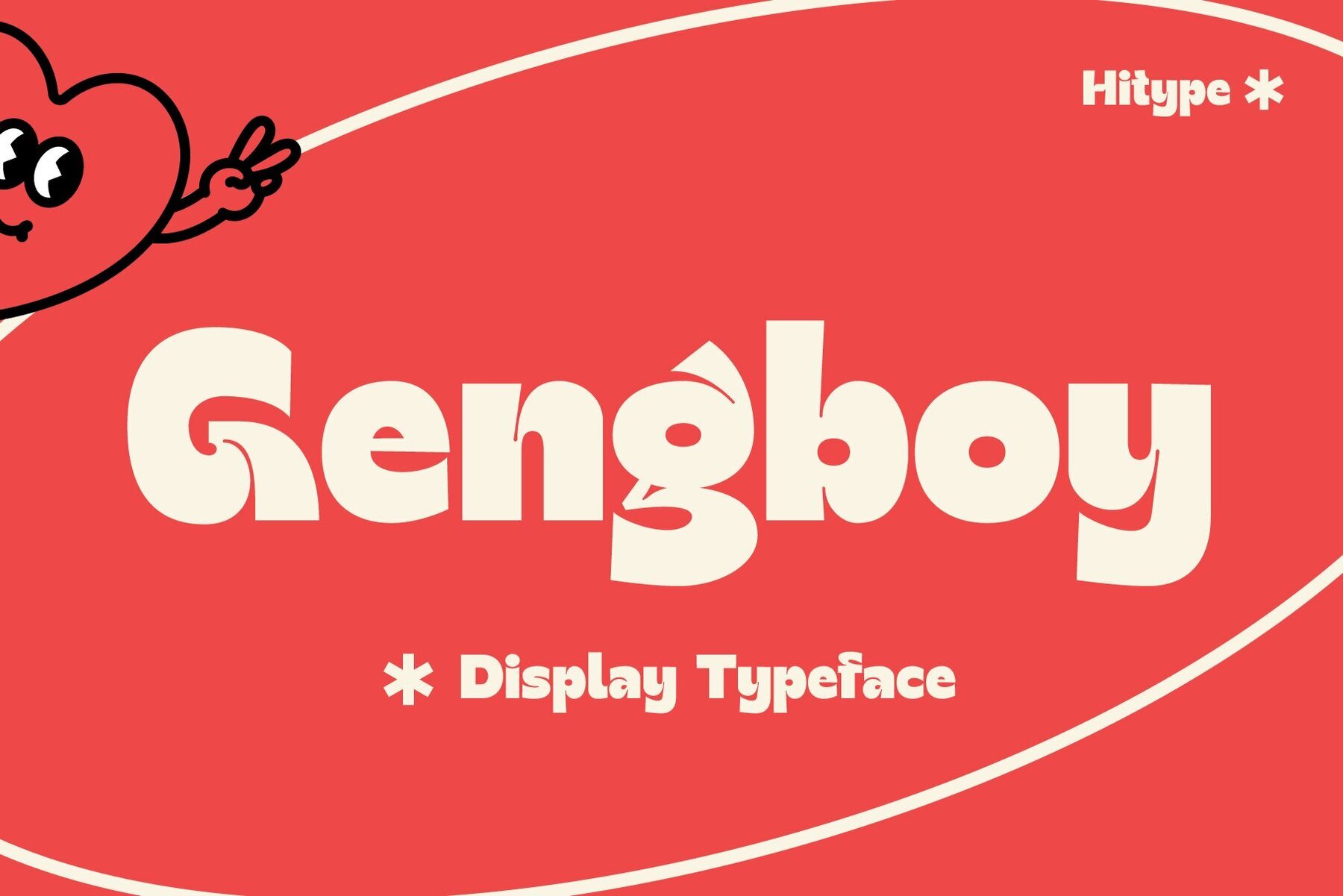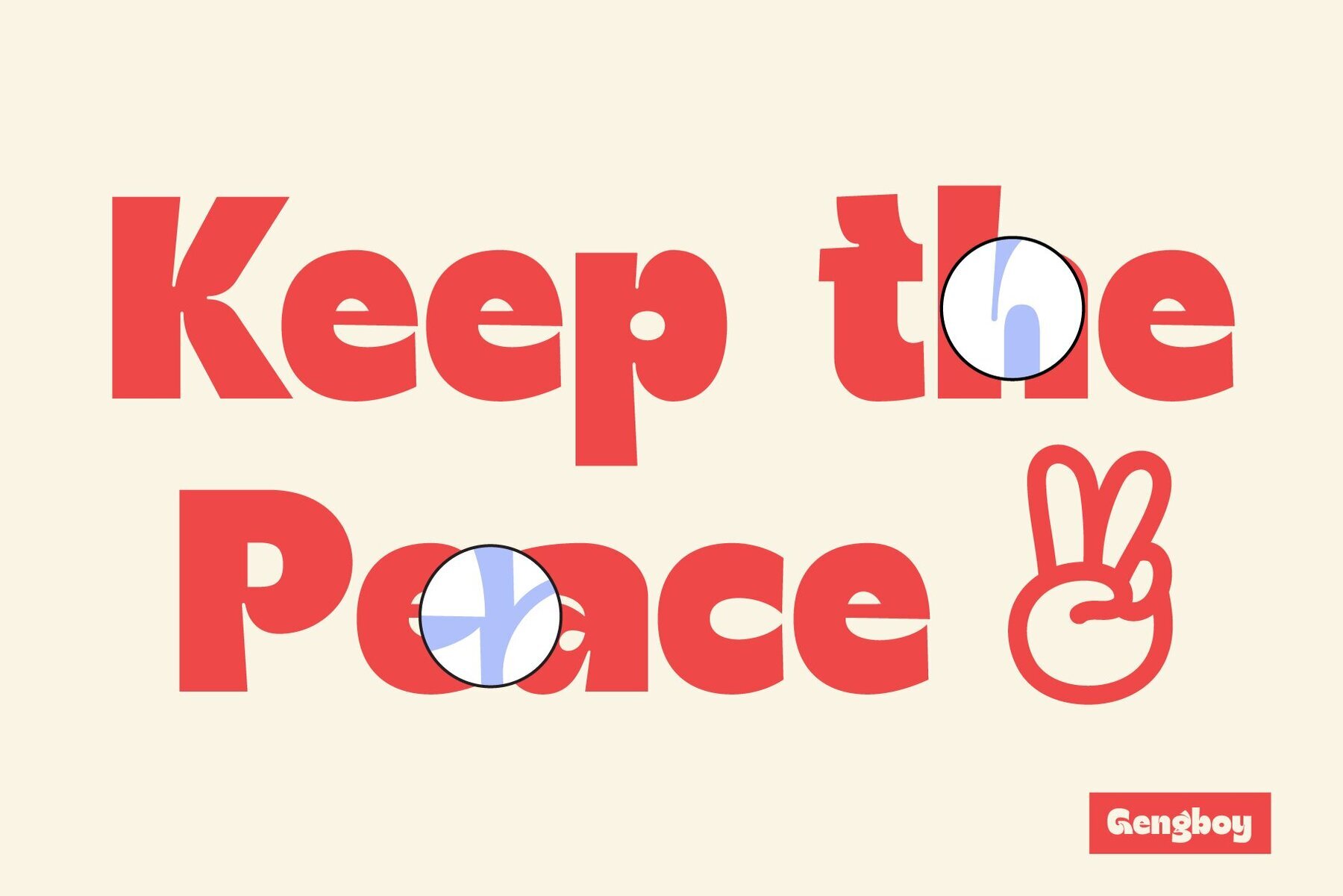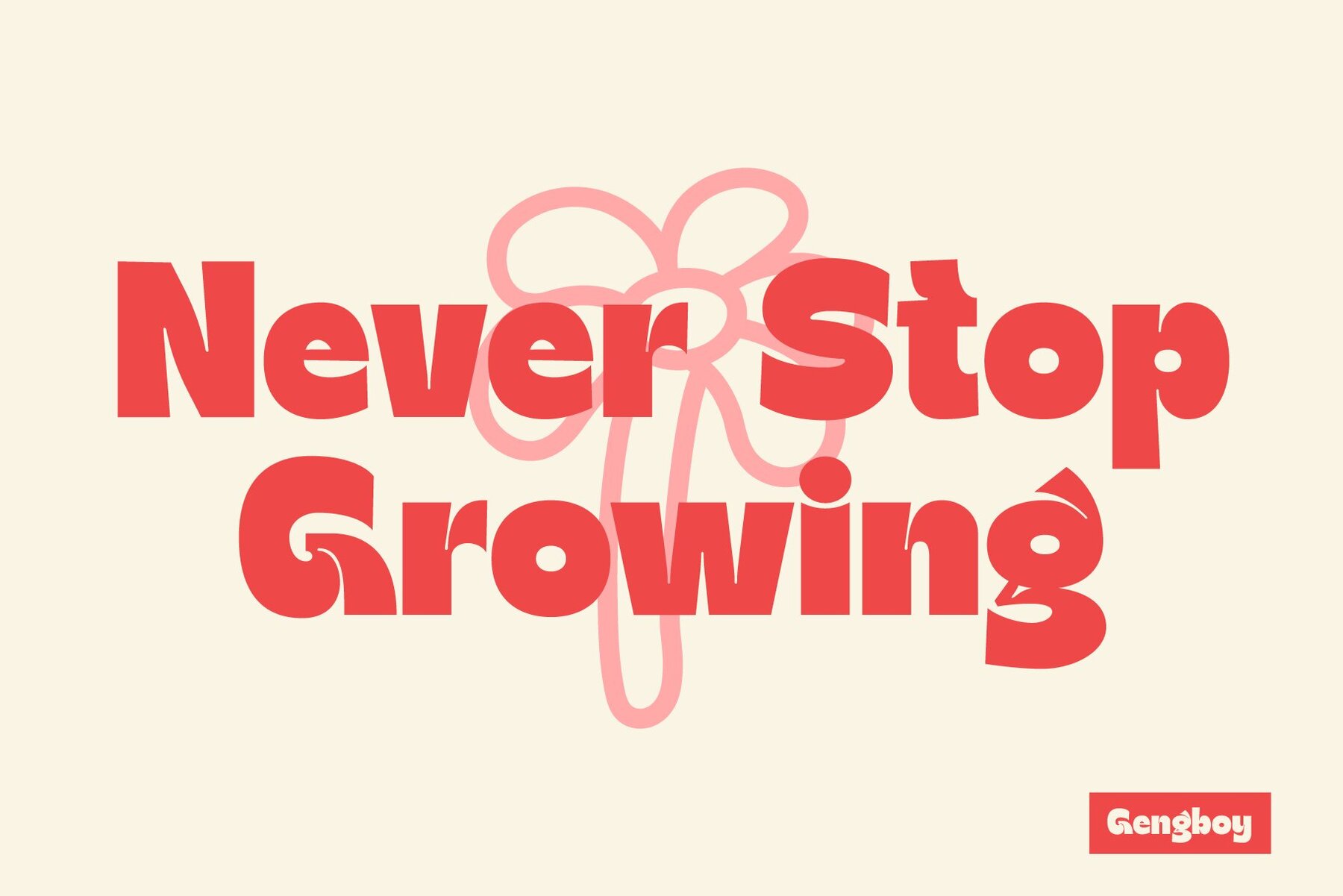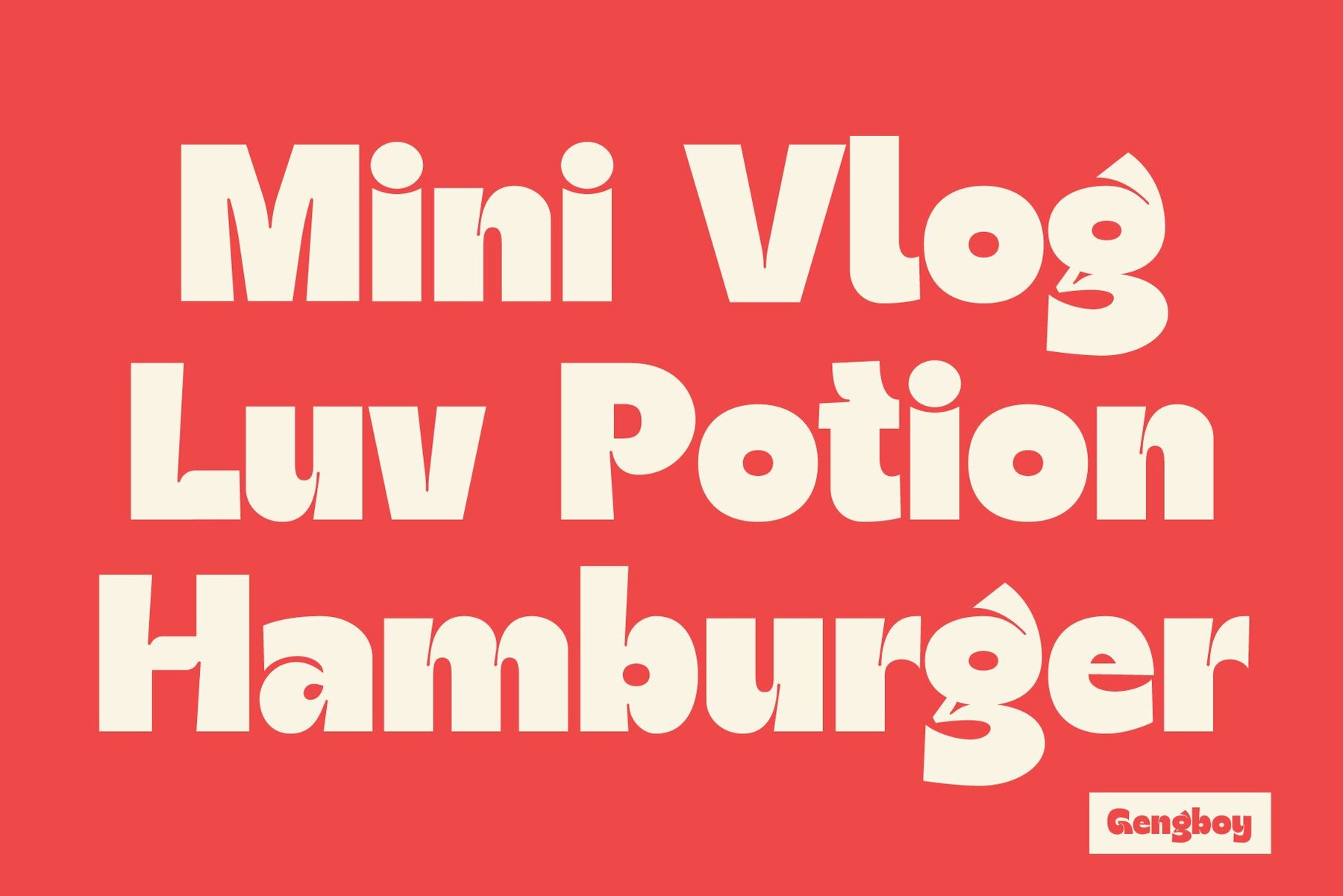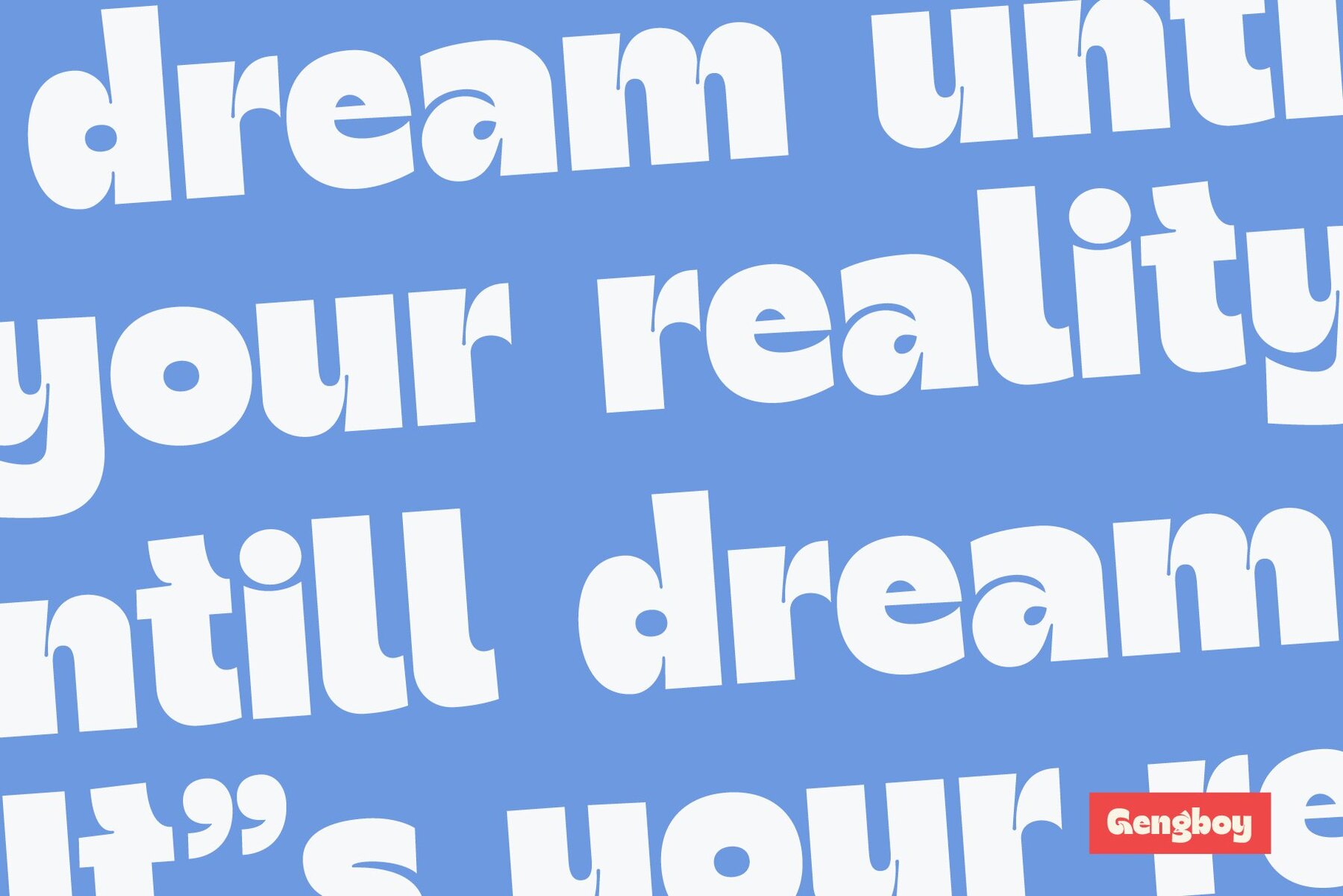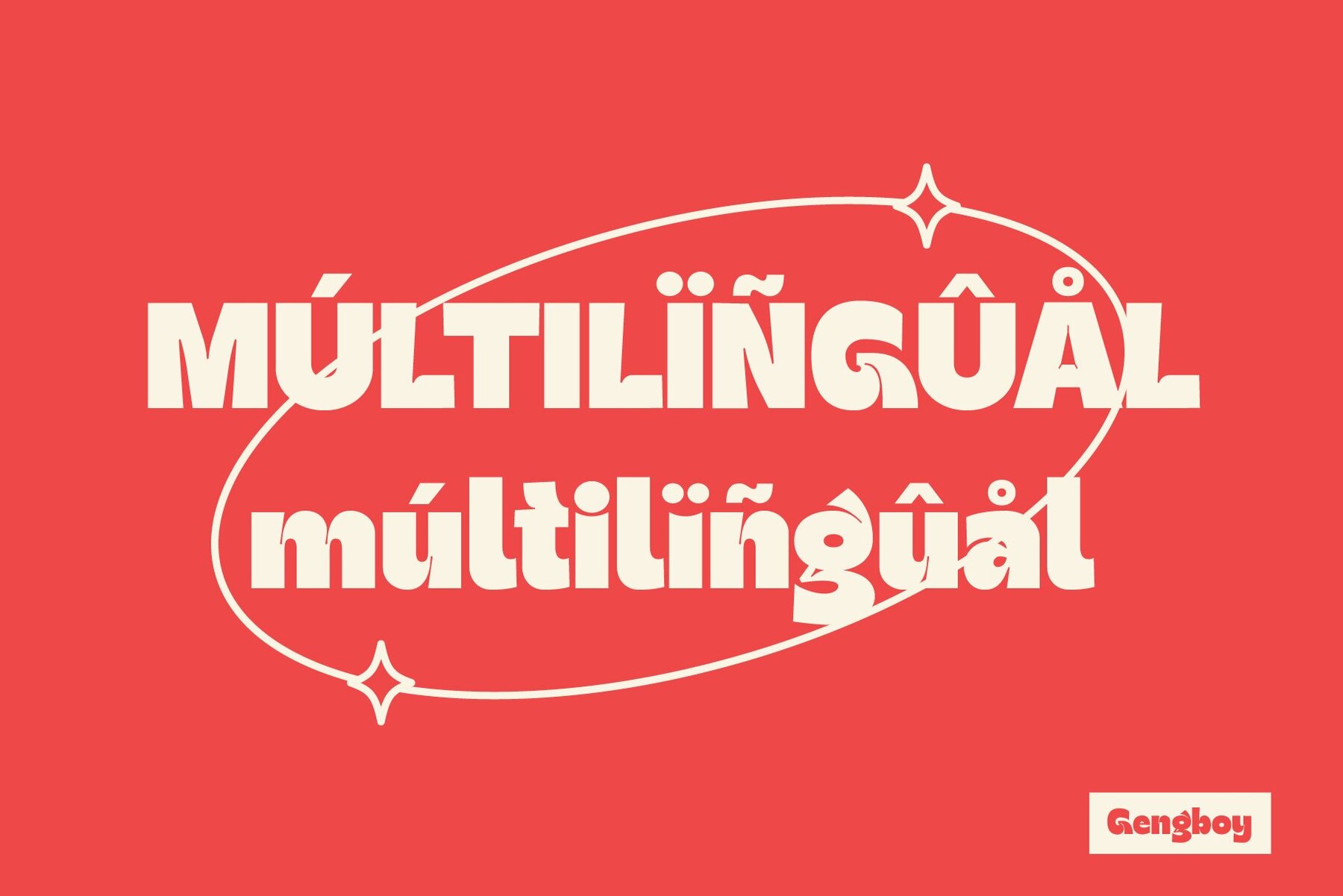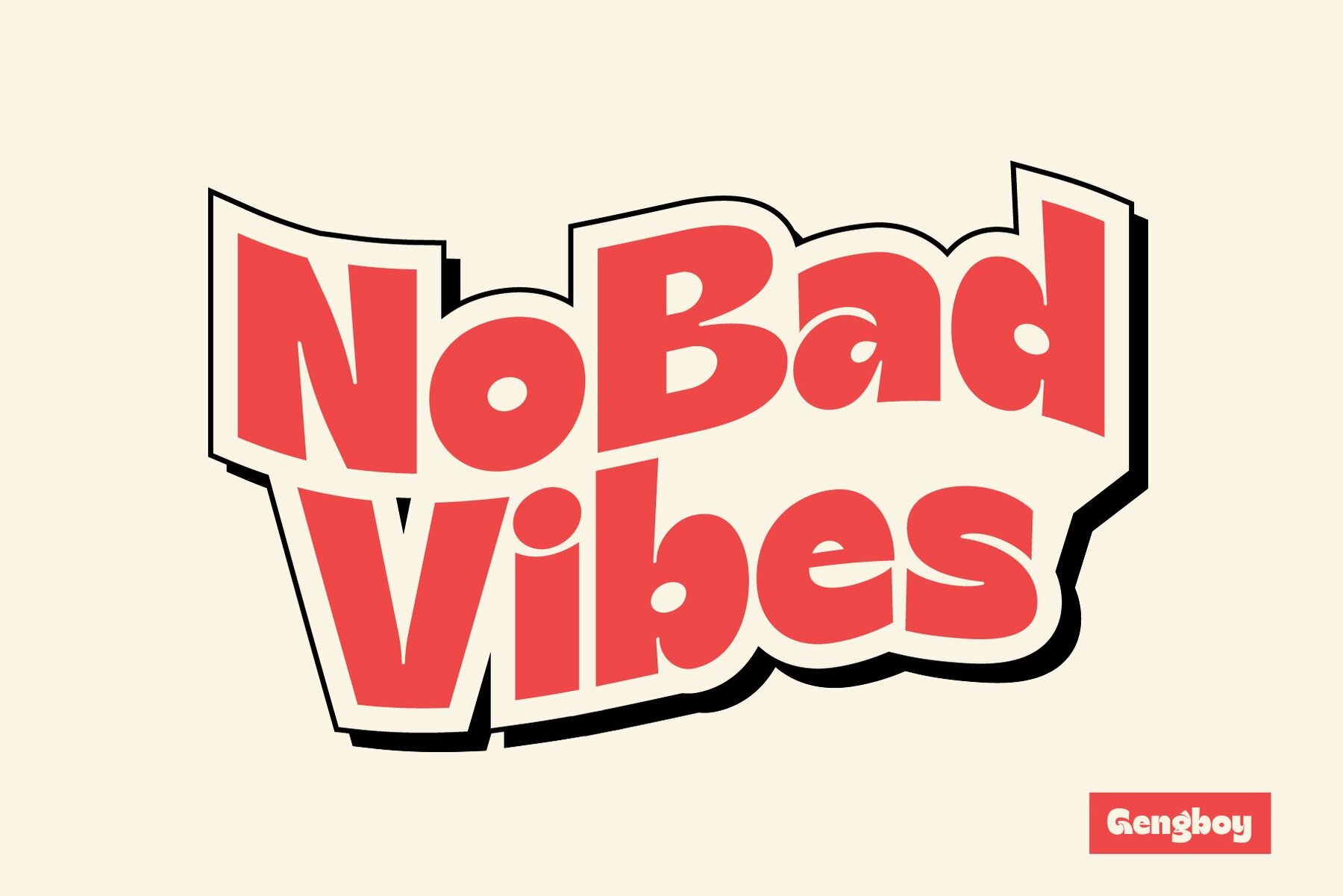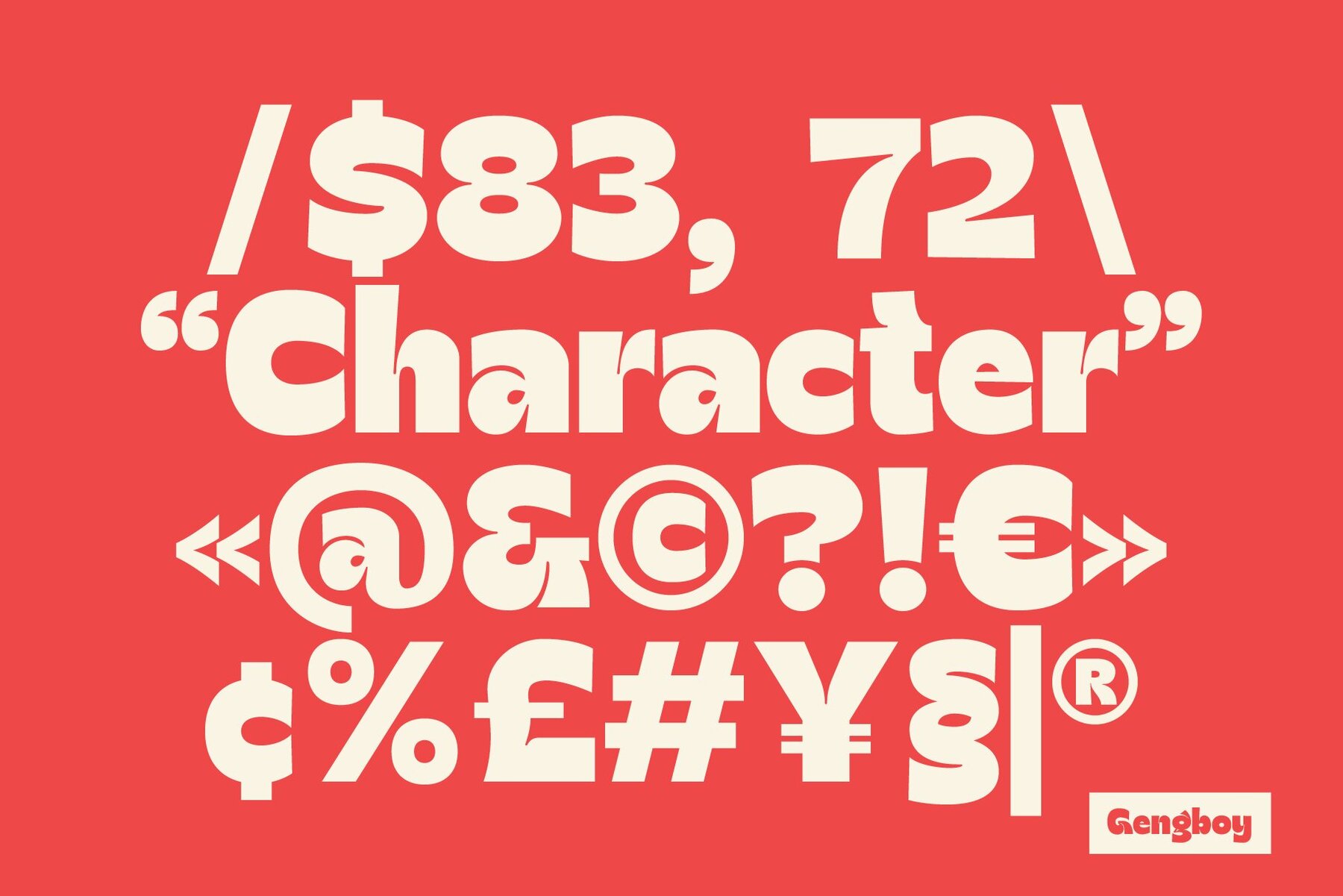
Gengboy Font
Gengboy
Gengboy is a bold sans serif display typeface that infuses your designs with quirky details and retro charm. Its playful nature is perfect for creative projects demanding a vibrant and standout voice, breathing life into stickers, posters, logos, and packaging. Whether for branding or any other fun endeavor, Gengboy delivers personality and joy to both print and digital media.Gengboy Typeface: Retro Charm & Playful Boldness